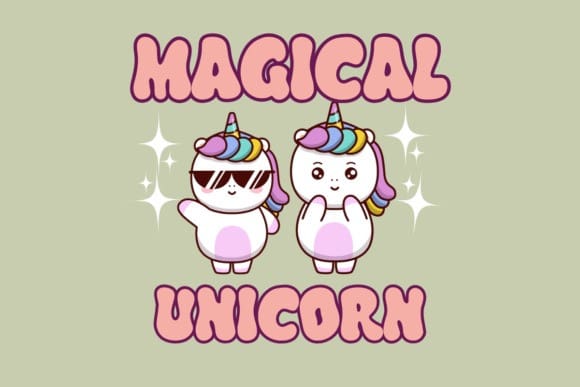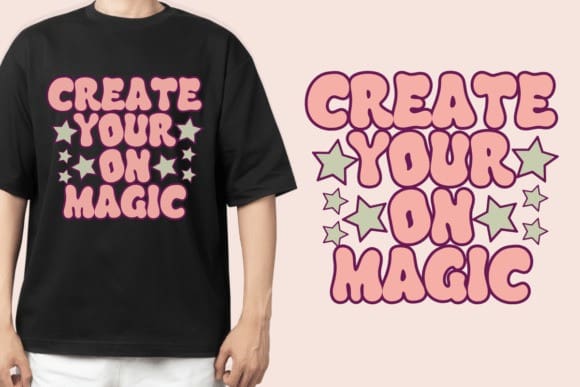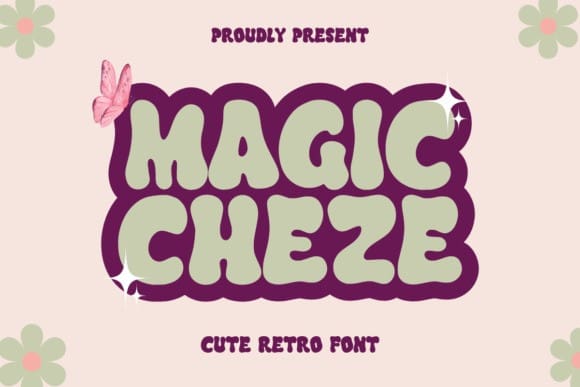
Magic Cheze Font
Magic Cheze Font is a cute retro vintage display font, it’s perfect for designs that need a playful, cheery accent. MagicCheze is suitable for book covers, posters, packaging, merchandise, logotypes, and many more.